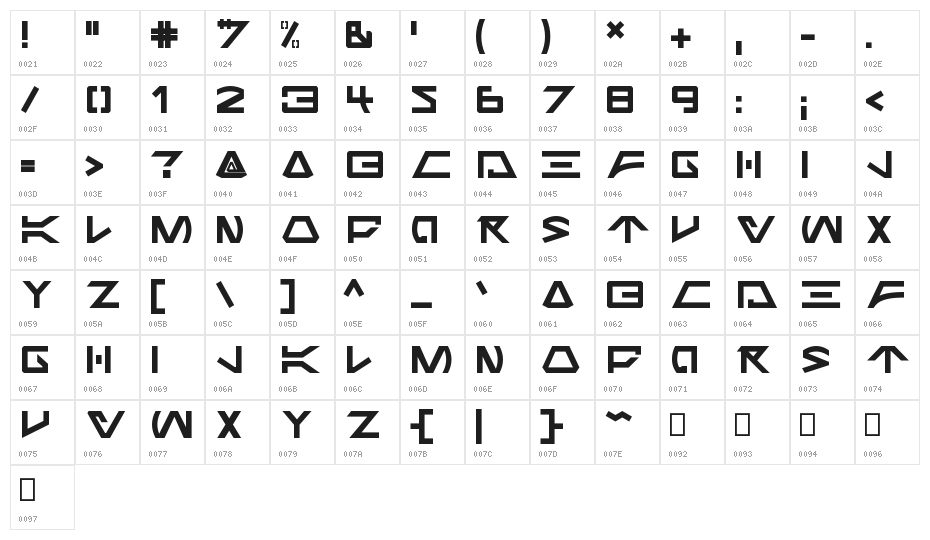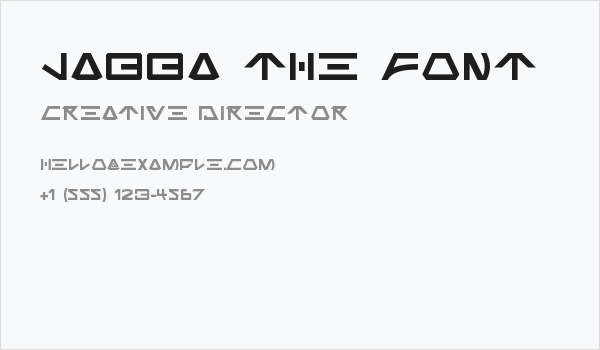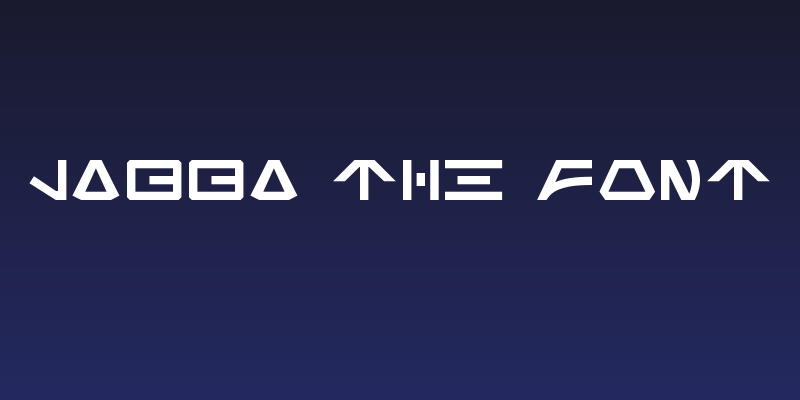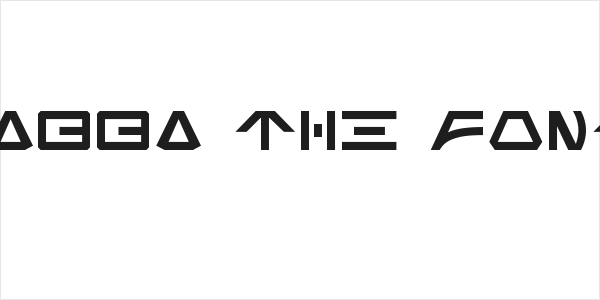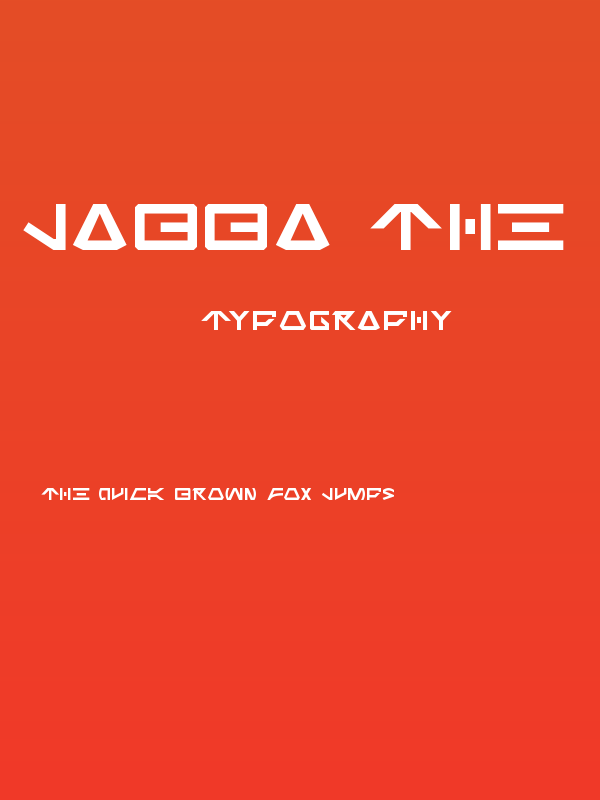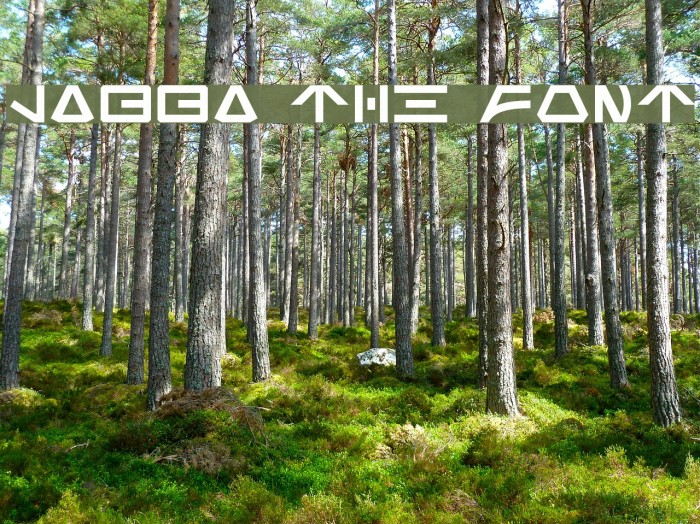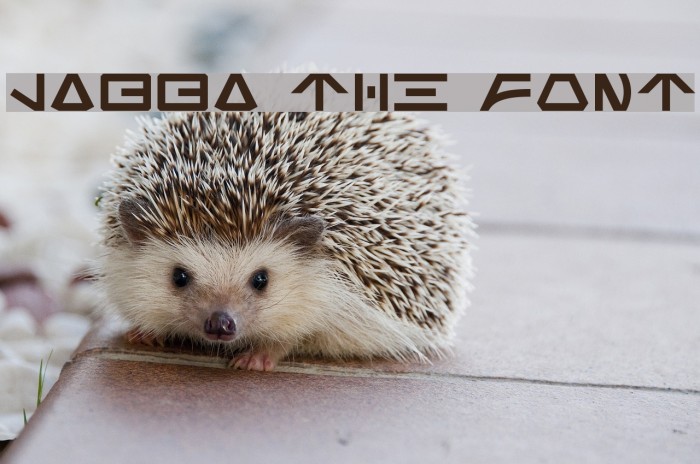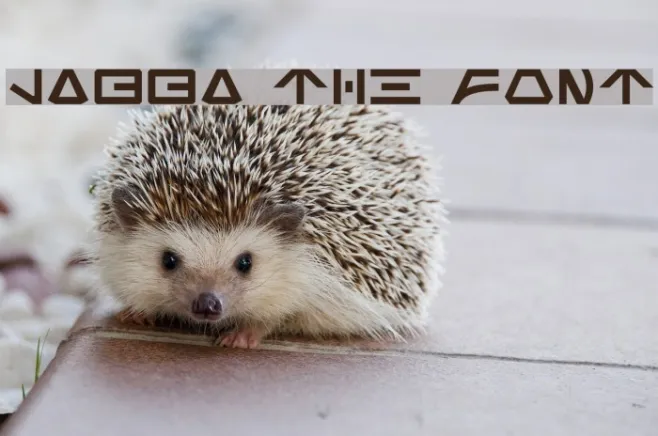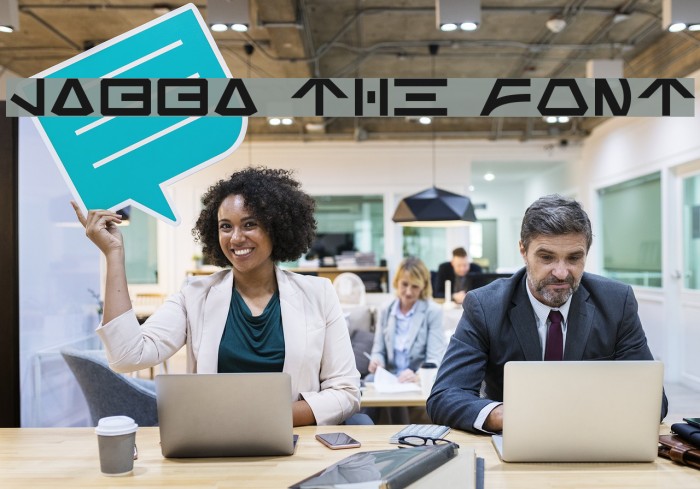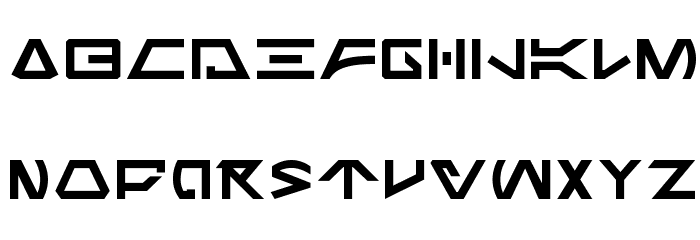
Jabba the Font Font
Jabba the Font Description
This font features a bold, geometric design with angular shapes and sharp edges, creating a futuristic and tech-inspired appearance. The characters are constructed with a consistent thickness, giving them a uniform and solid look. The uppercase letters are particularly striking, with unique cuts and angles that make each letter stand out. The numbers and special characters follow the same design principles, ensuring a cohesive style throughout. This font's distinct and modern aesthetic makes it ideal for projects that require a strong visual impact.
| Proposed Projects | Ideal for sci-fi themed designs, video game graphics, tech branding, and futuristic posters. |